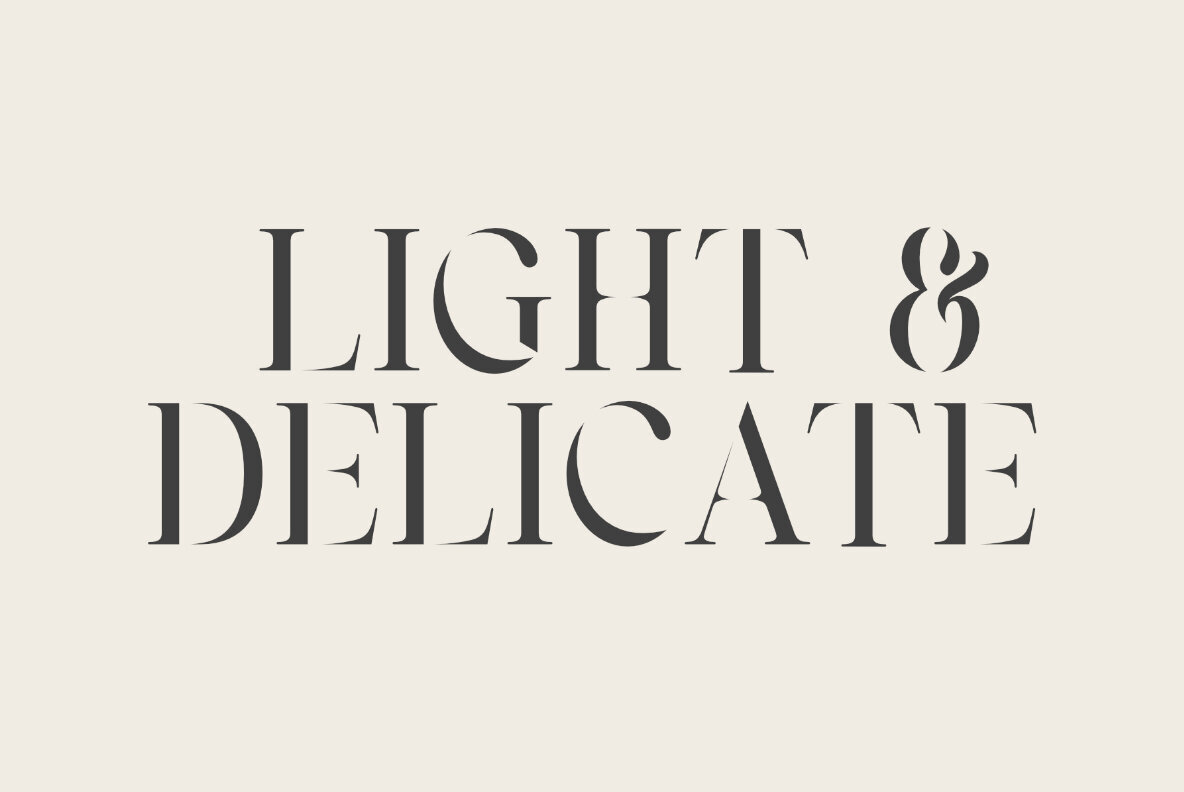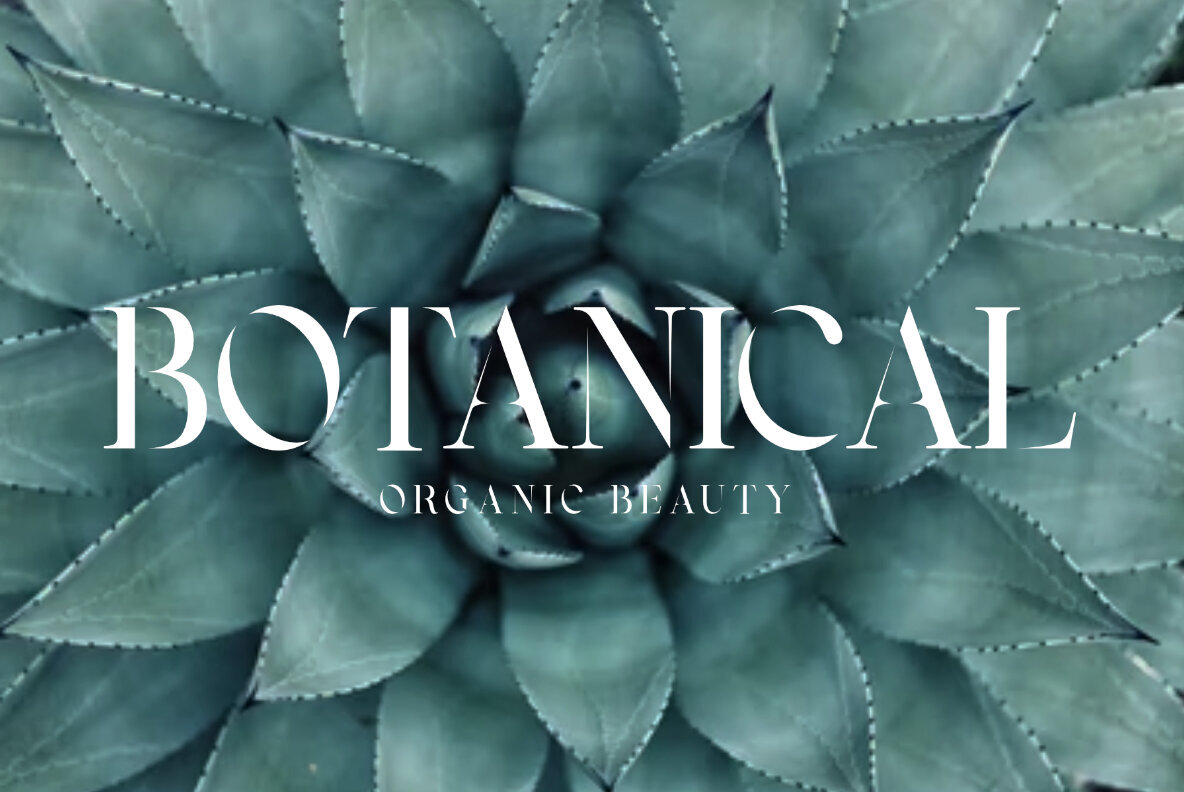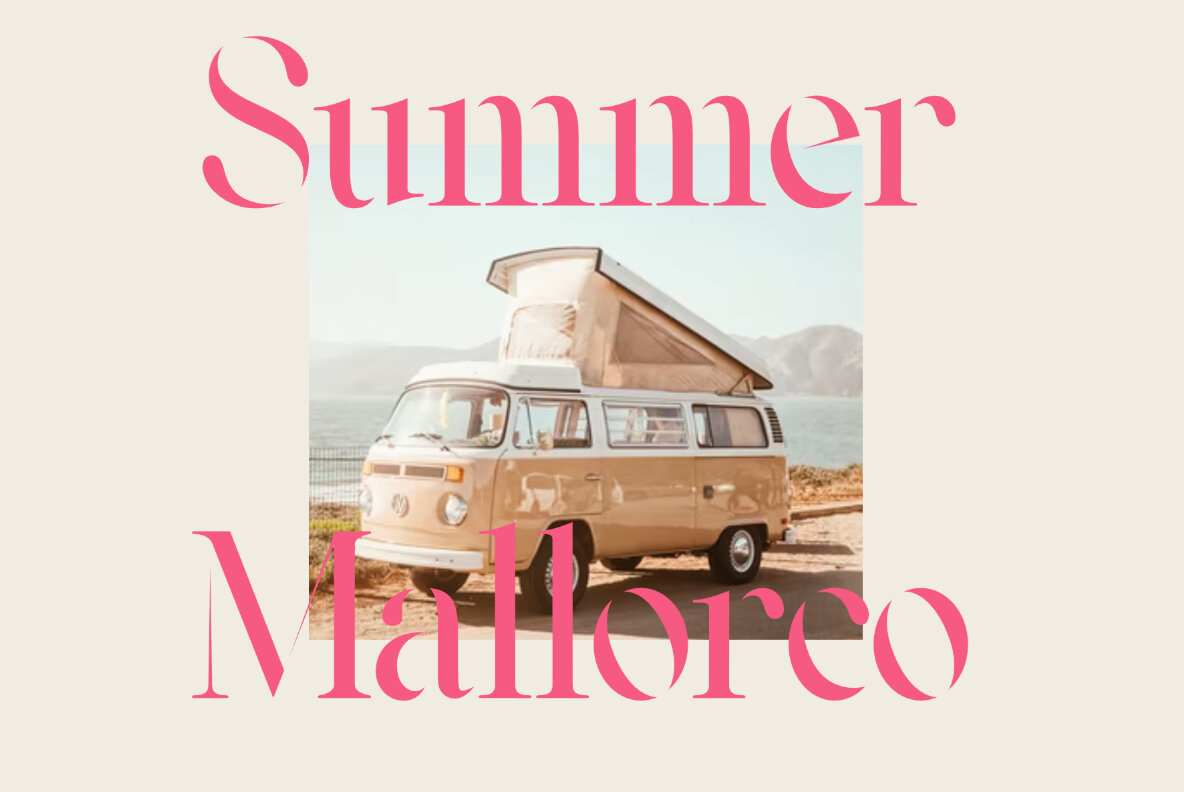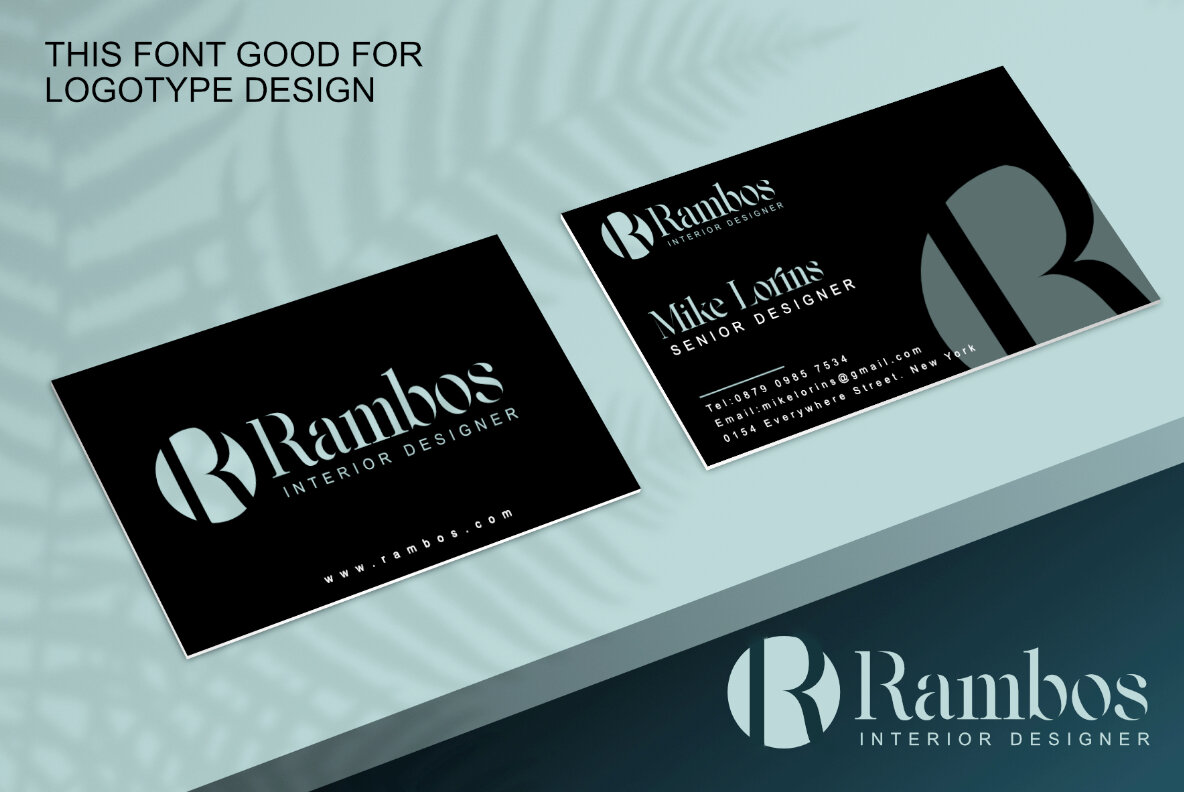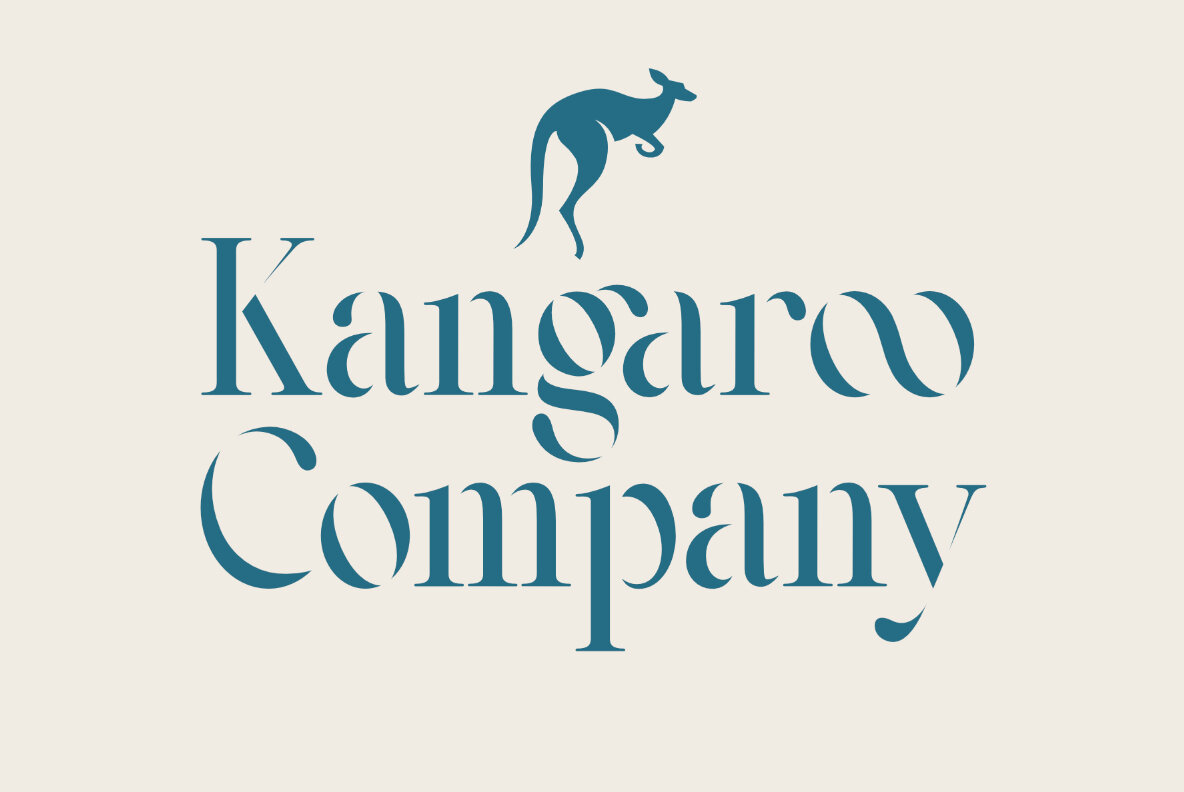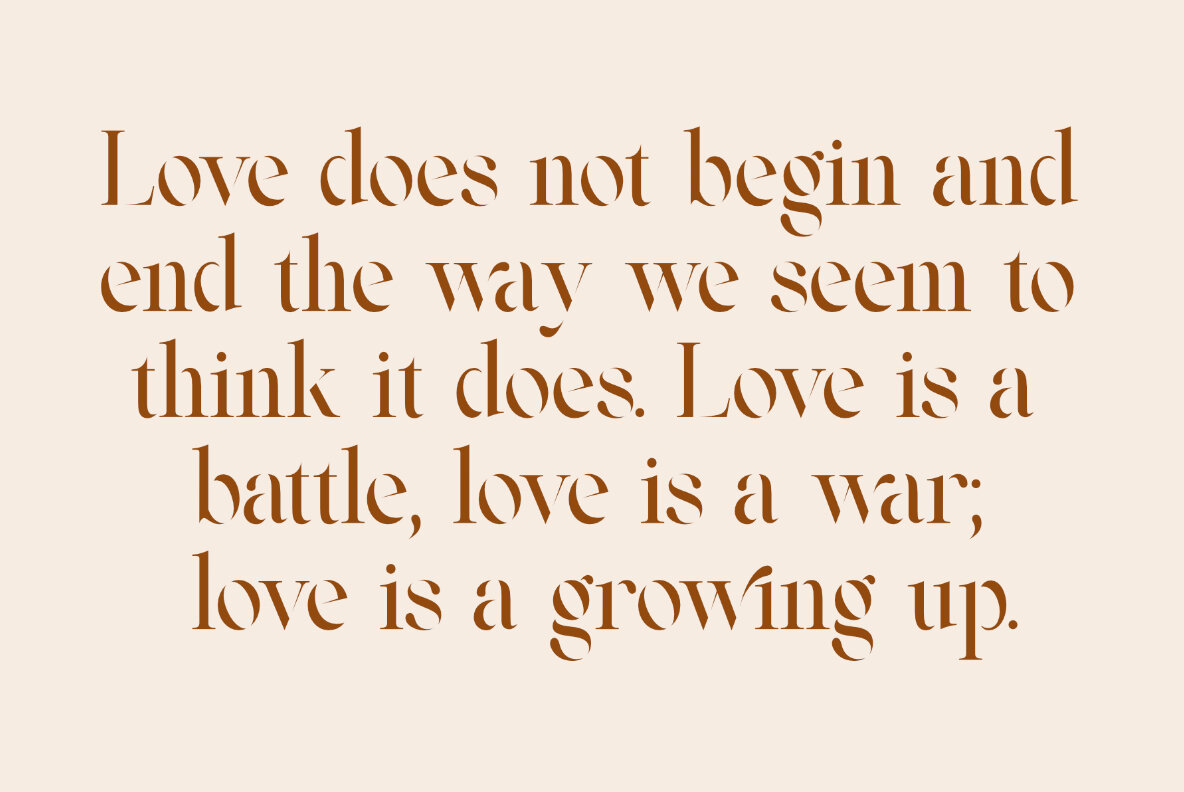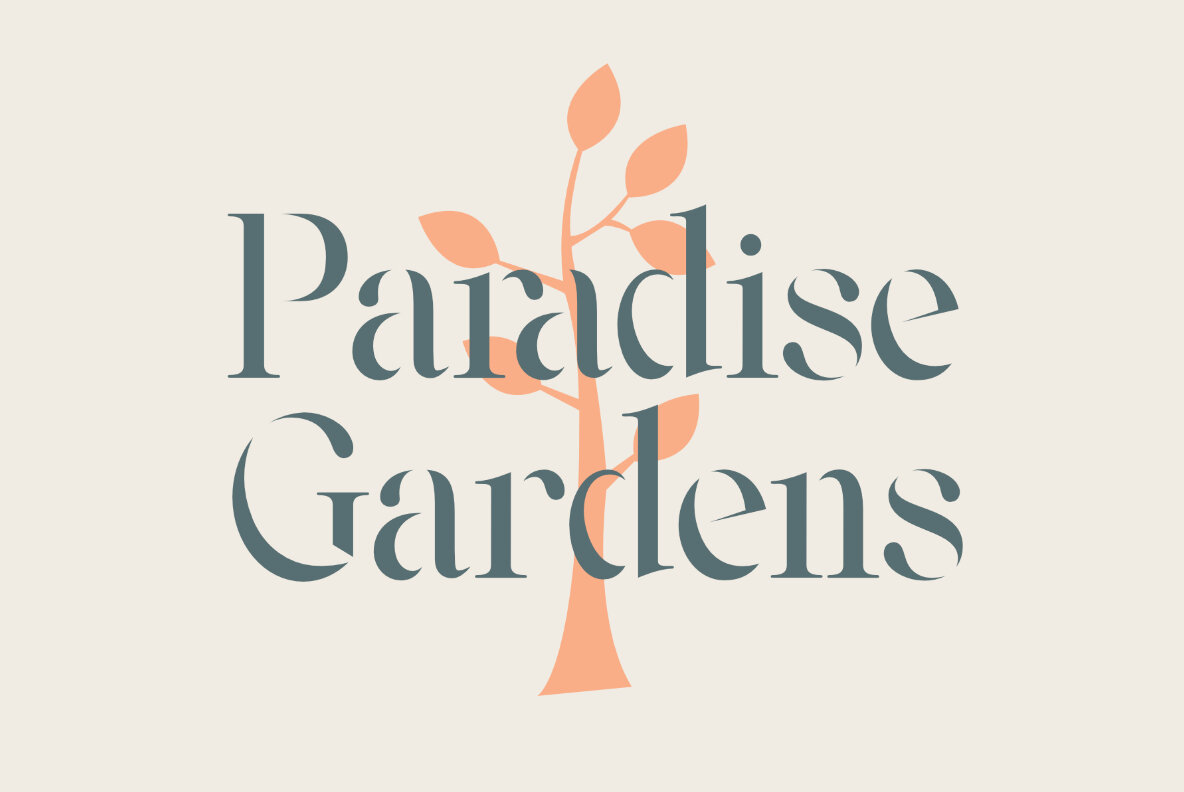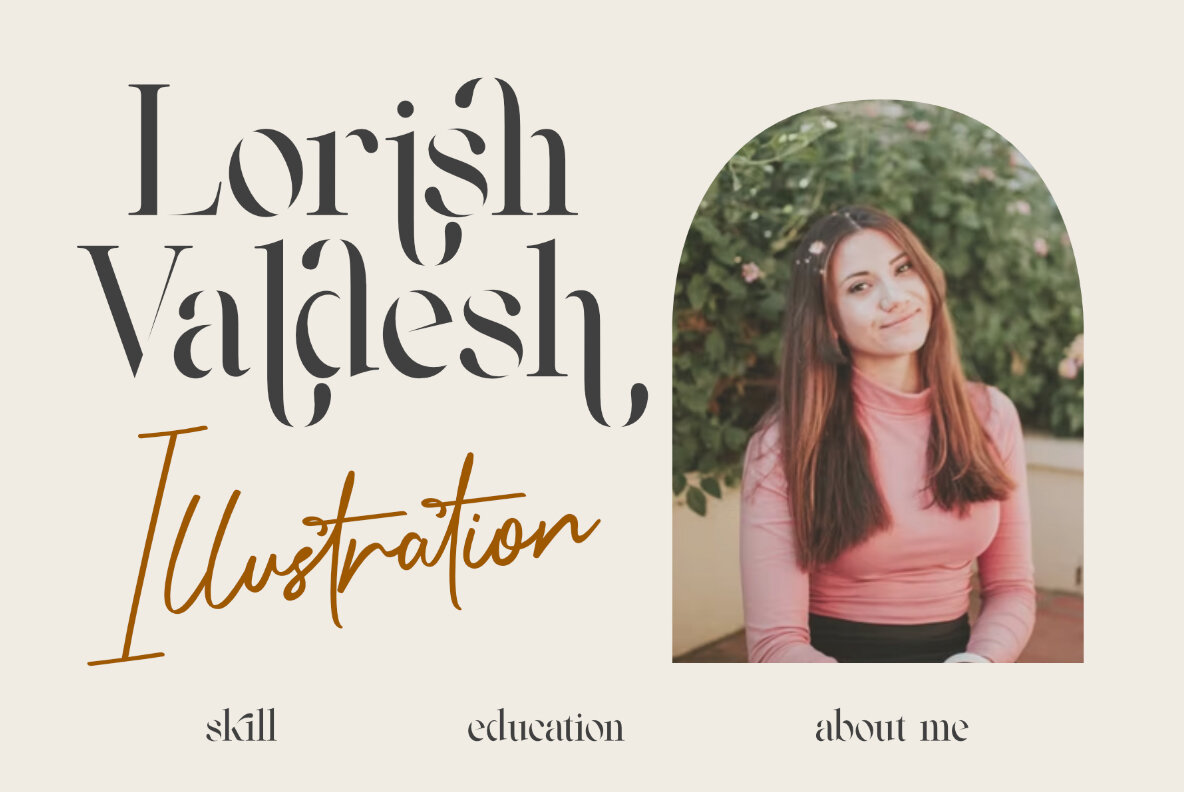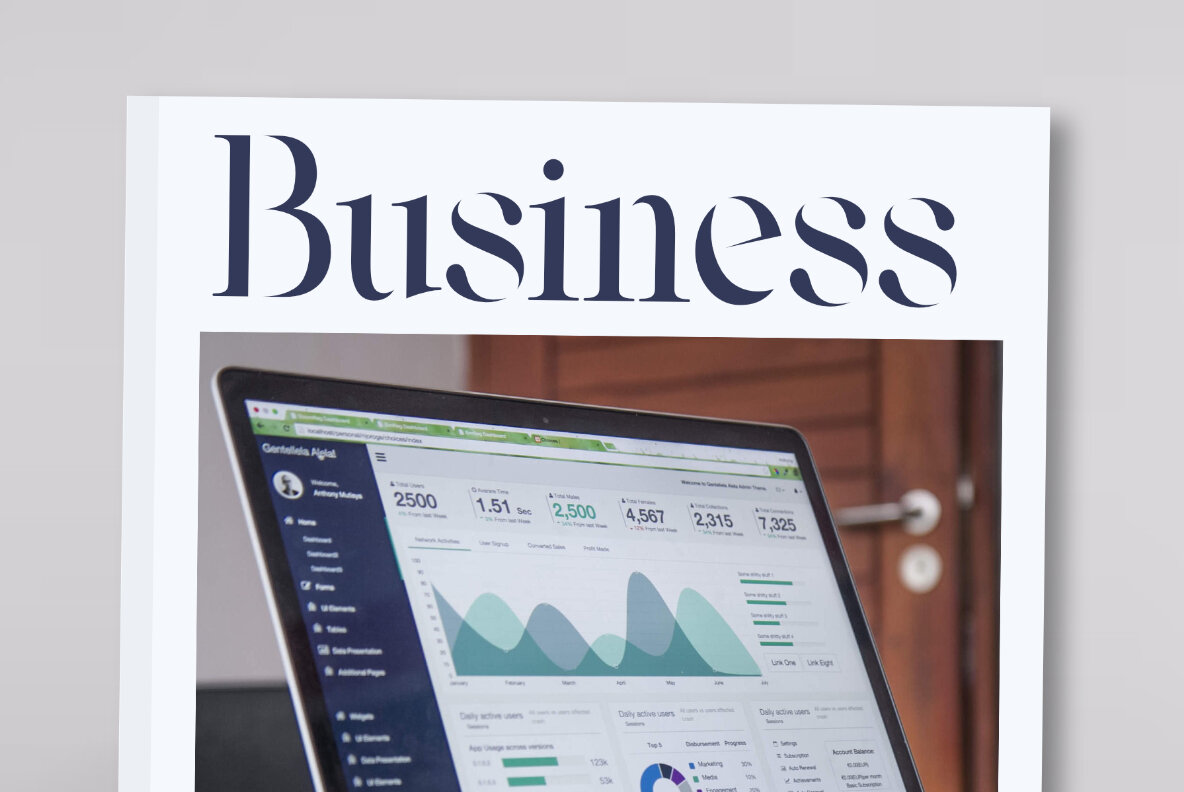
Vasmook Font
Vasmook Regular
Crafted with elegance and sophistication, Vasmook is a serif font that stands out for its modern and classy aesthetic. Designed with carefully considered ligatures, Vasmook provides a harmonious blend of style and function, making it an ideal choice for a wide range of design engagements. Whether you're developing a luxury logo, working on sophisticated editorial layouts, or curating an artistic branding for a fashion or cosmetic brand, Vasmook offers the versatility you need. This font is especially suited for upscale branding projects, including museums and art galleries, as well as boutique and stationery designs. The refined touch of Vasmook also lends itself well to stylish invitations, home decor projects, and book covers. Its application is extensive, embracing modern advertising while maintaining a sense of timeless elegance. Features:Vasmook: A Beauty Display Serif for Stylish Projects